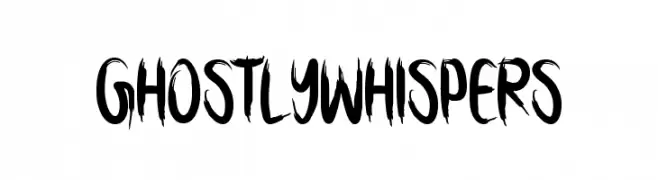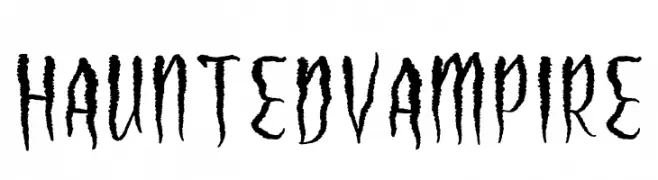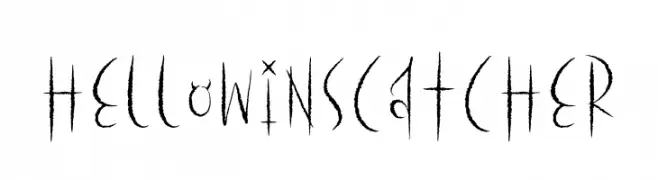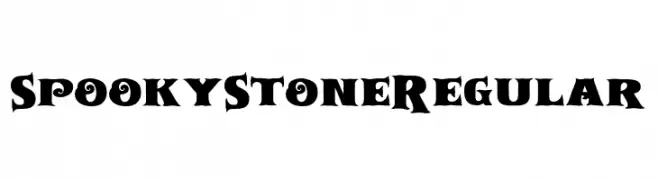
( Fonts by Elbanadha Creative )
A spooky, brush-stroke font ideal for Halloween themes.
( Fonts by Masa Aska Sanurumi )
A horror-themed font with dripping, eerie characters.
( Fonts by Ridwanfdl )
A spooky, jagged font perfect for Halloween themes.
( Fonts by Md Shohail Bhuian )
A haunting, jagged font with a spooky, ghostly aesthetic.
( Fonts by Si Panji )
A bold, jagged font with a spooky, playful Halloween theme.
( Fonts by Perspectype Studio )
A spooky, jagged font perfect for horror and Halloween themes.
( Fonts by Joseph Dawson )
A dripping, eerie font ideal for horror themes.
( Fonts by Joseph Dawson )
A bold, dripping font perfect for horror themes.
( Fonts by Perspectype Studio )
A spooky, hand-drawn font with sharp, elongated strokes and a scratchy texture.
( Fonts by Lettersweet Studio )
A bold, decorative font with a spooky, whimsical style.